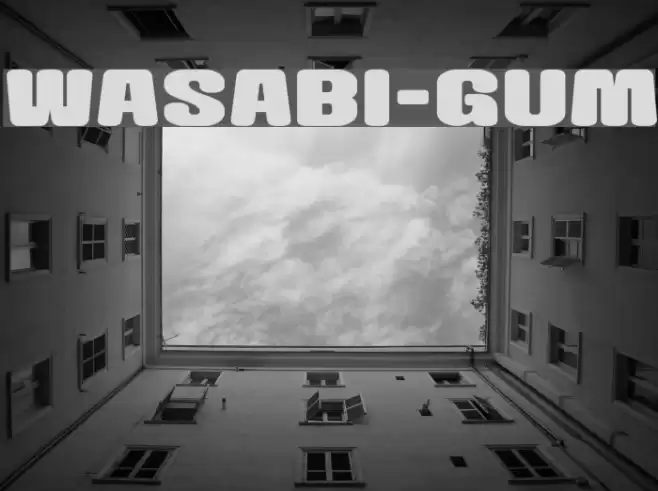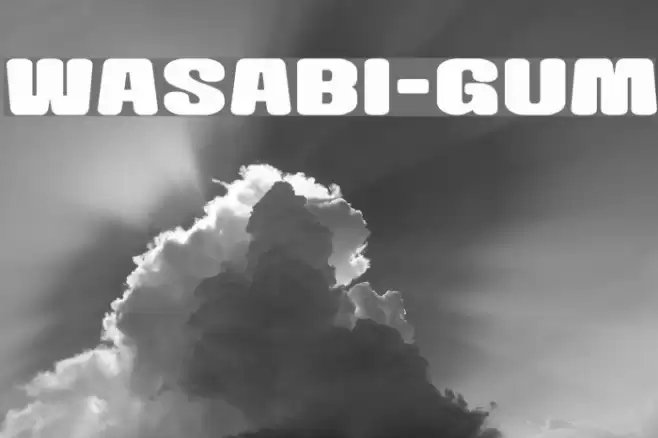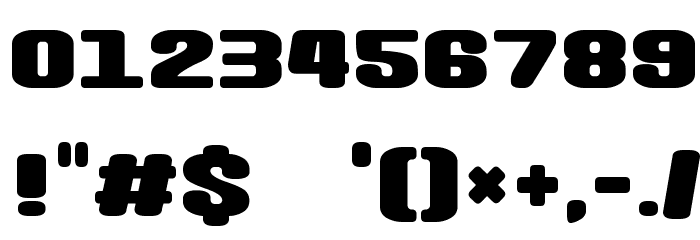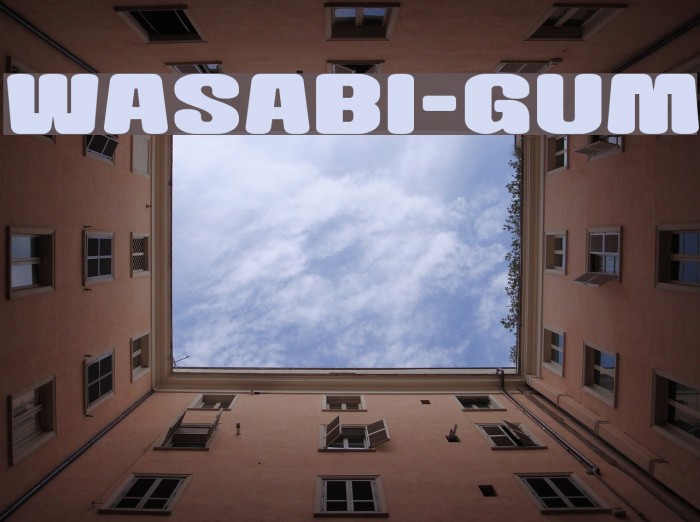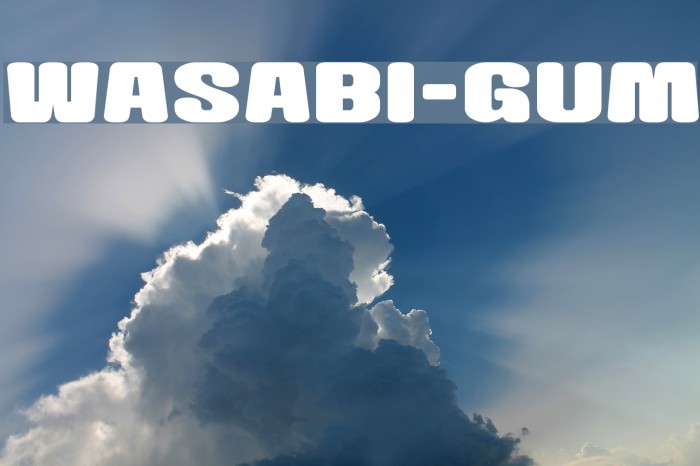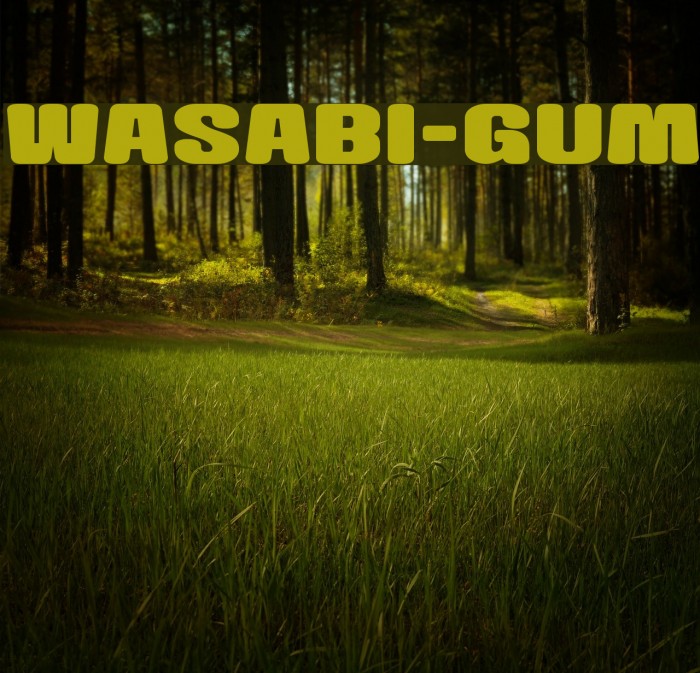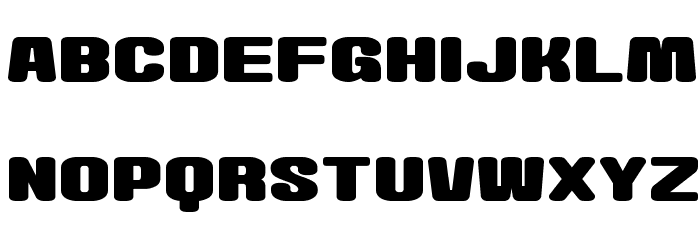
Wasabi-Gum Font
Wasabi-Gum Description
This font features bold, rounded characters with a playful and chunky appearance. The letters are uniformly thick, giving them a strong presence on the page. The rounded edges soften the overall look, making it approachable and friendly. The characters are tightly spaced, enhancing the boldness and impact. This style is reminiscent of retro or vintage designs, often used to convey a sense of fun and creativity. The numbers and special characters maintain the same bold and rounded aesthetic, ensuring consistency across all elements. This font is ideal for projects that require a strong visual impact with a touch of whimsy.
A bold, rounded font with a playful, retro vibe from Uncategorized fonts.
- Proposed Projects: Ideal for posters, logos, children's books, and branding that requires a fun and bold statement.
- Character Spacing: Tight
- Overall Style: Retro, Playful